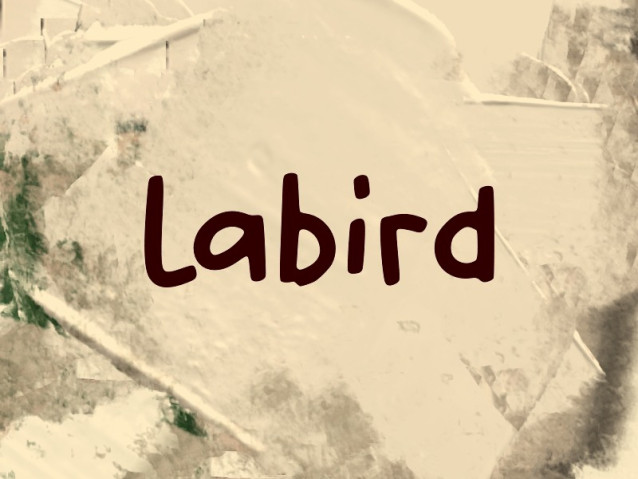
Labird Font
Labird Font is a simple and modern display font suitable for quotes, logos, headings, titles, and many more. Use it on any of your creative projects, and your designs will become outstanding!